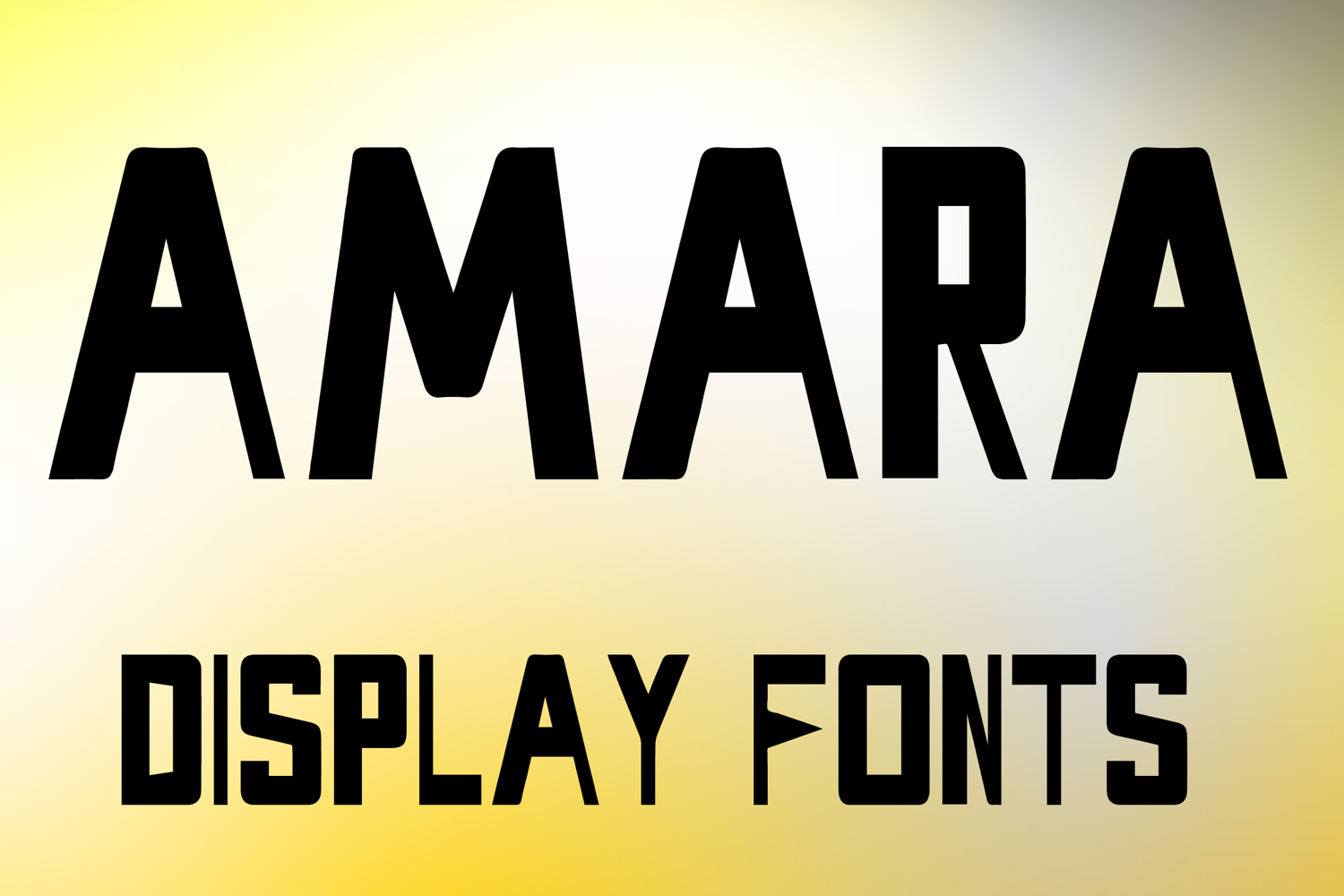
AMARA
AMARA is a bold display font with a tall geometric style and strong modern personality. Its uppercase letterforms feature thick strokes, sharp angles, and clean structured shapes that create a powerful, stylish, and eye-catching look. Designed with uppercase letters A–Z and numbers 0–9, AMARA is perfect for branding, posters, packaging, logos, headlines, social media graphics, and creative projects that need a bold and memorable statement.